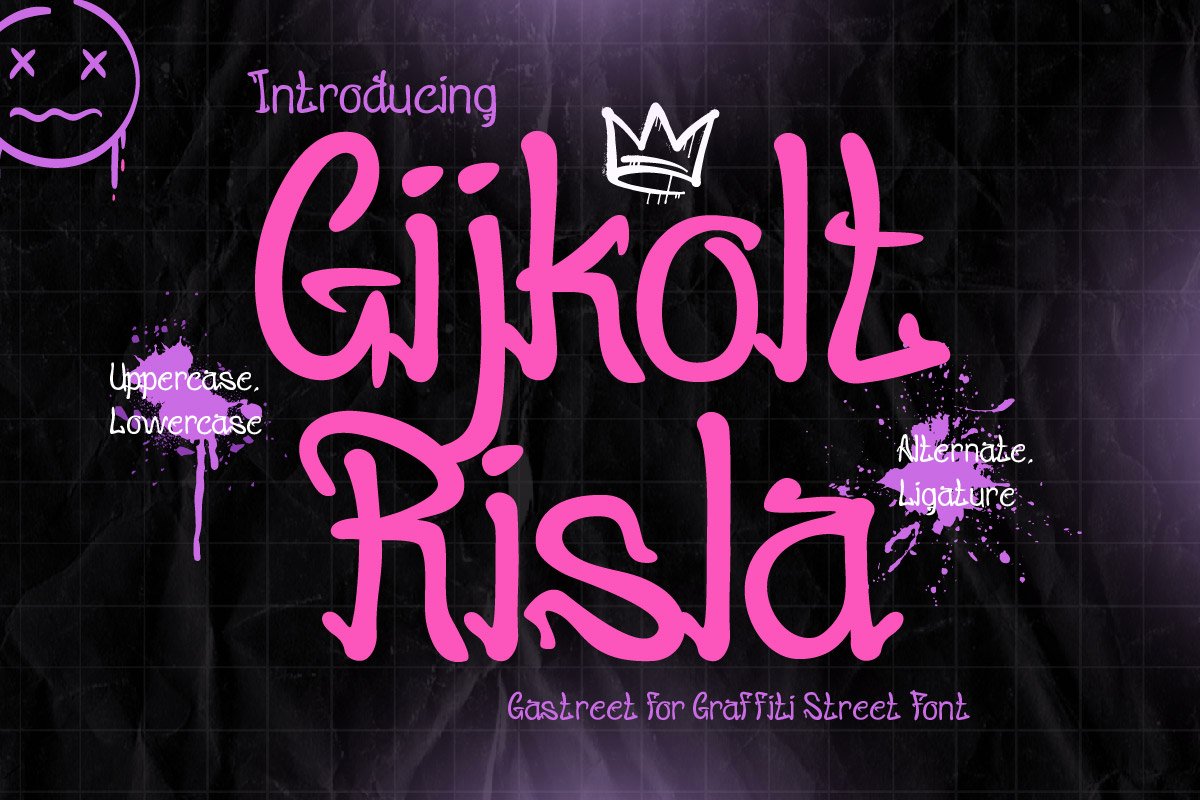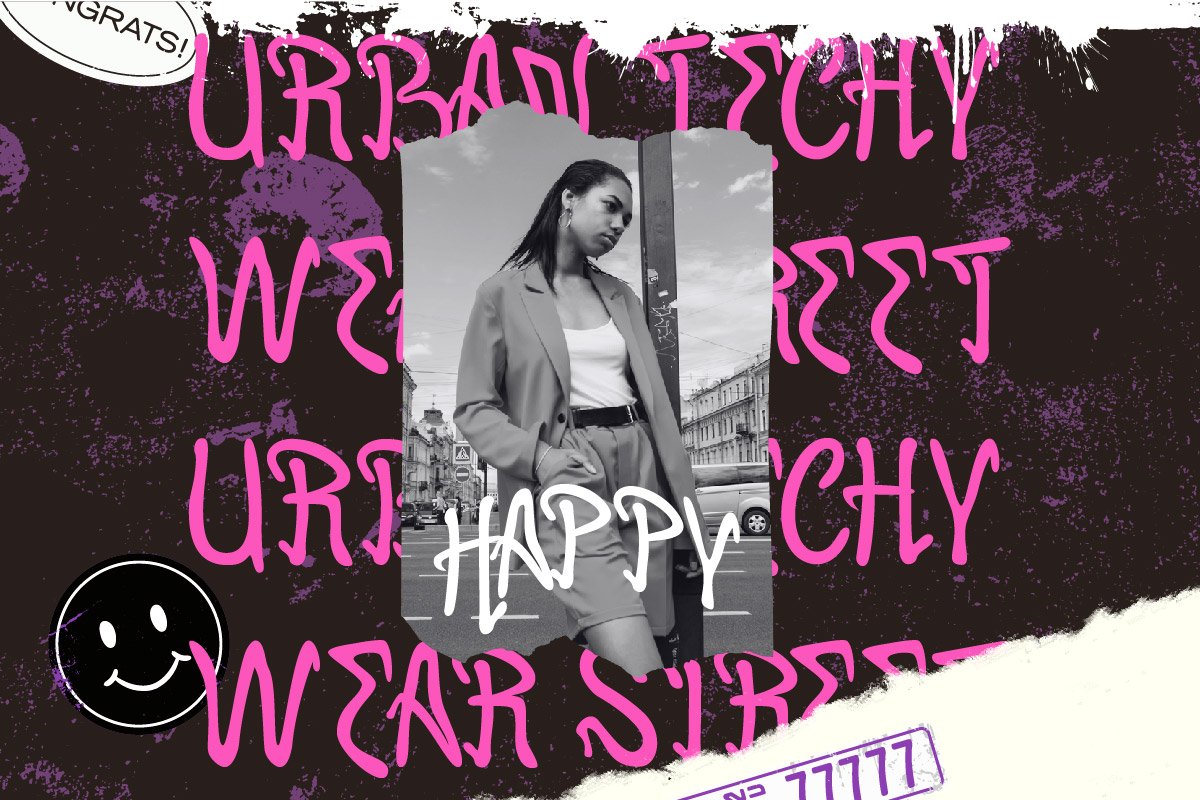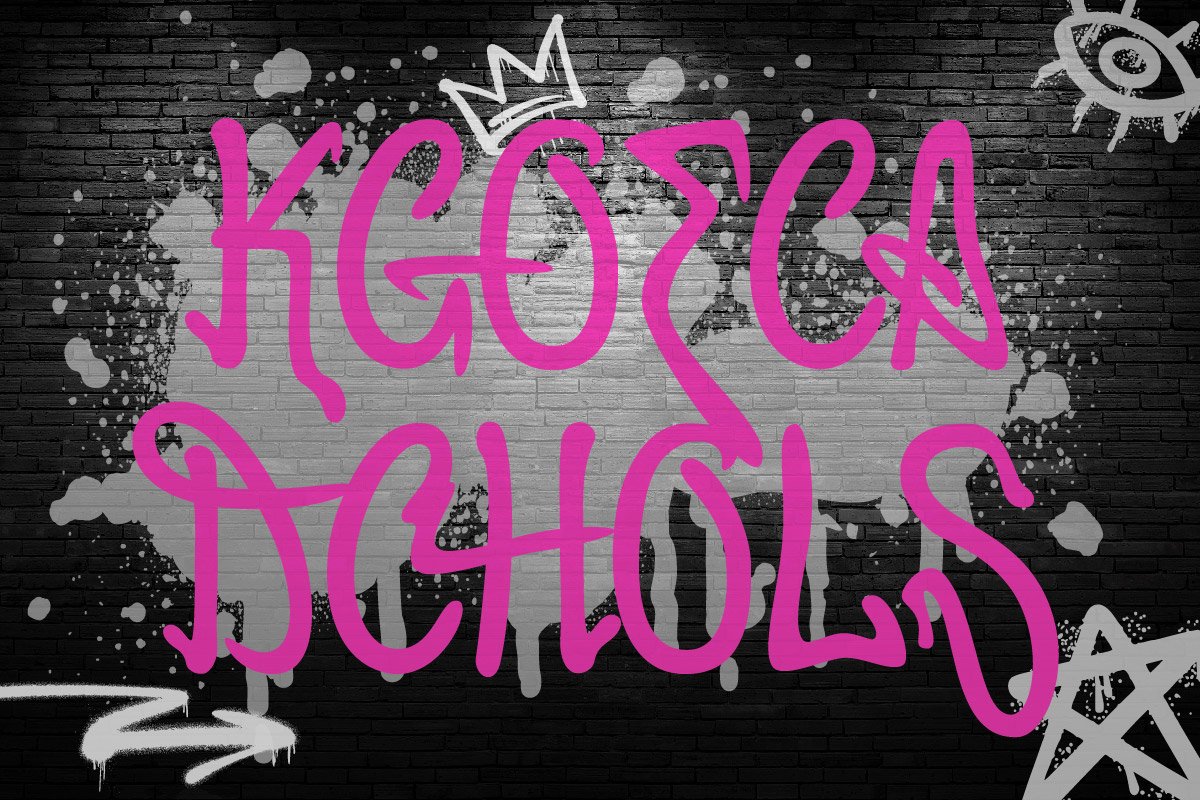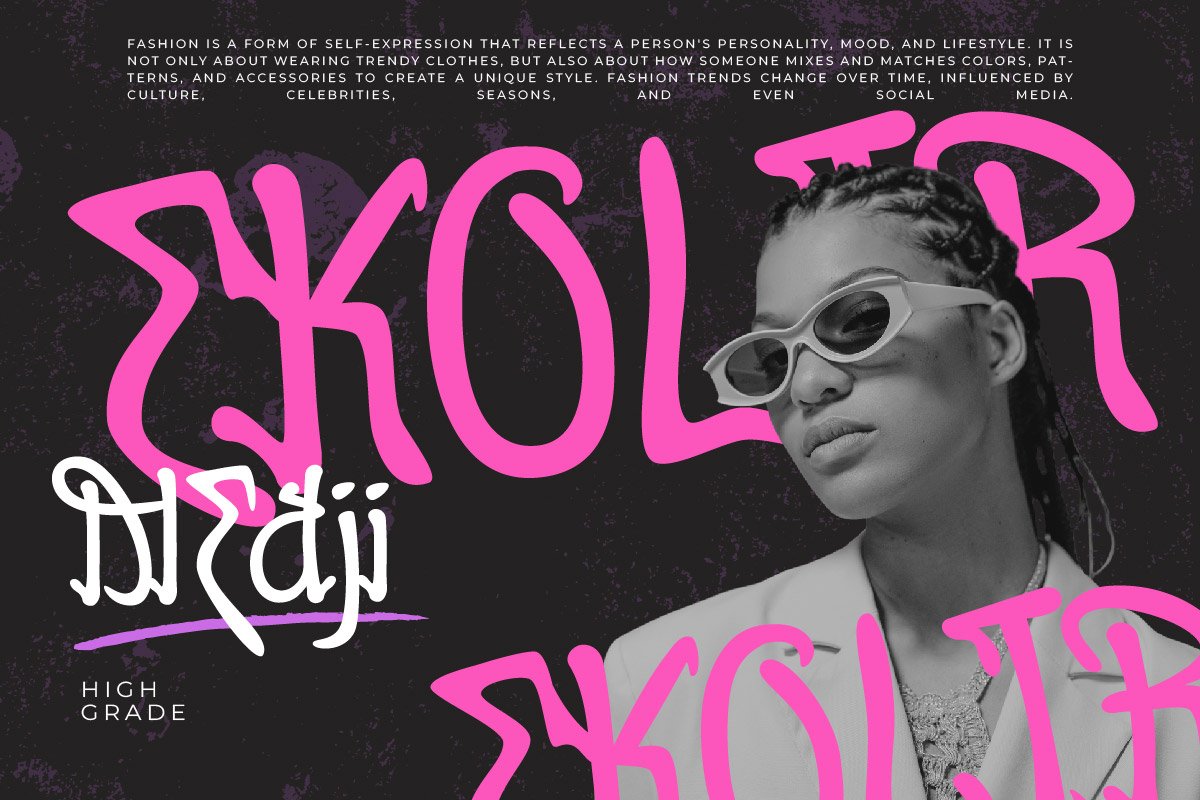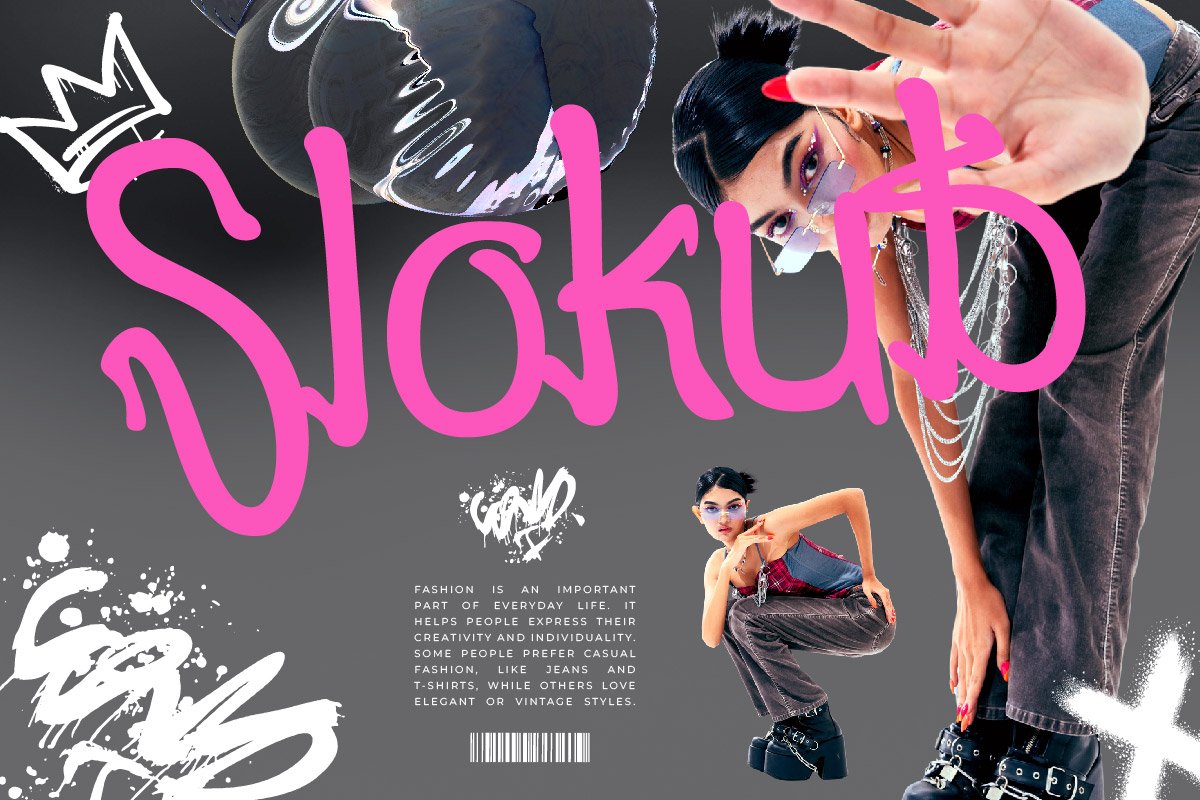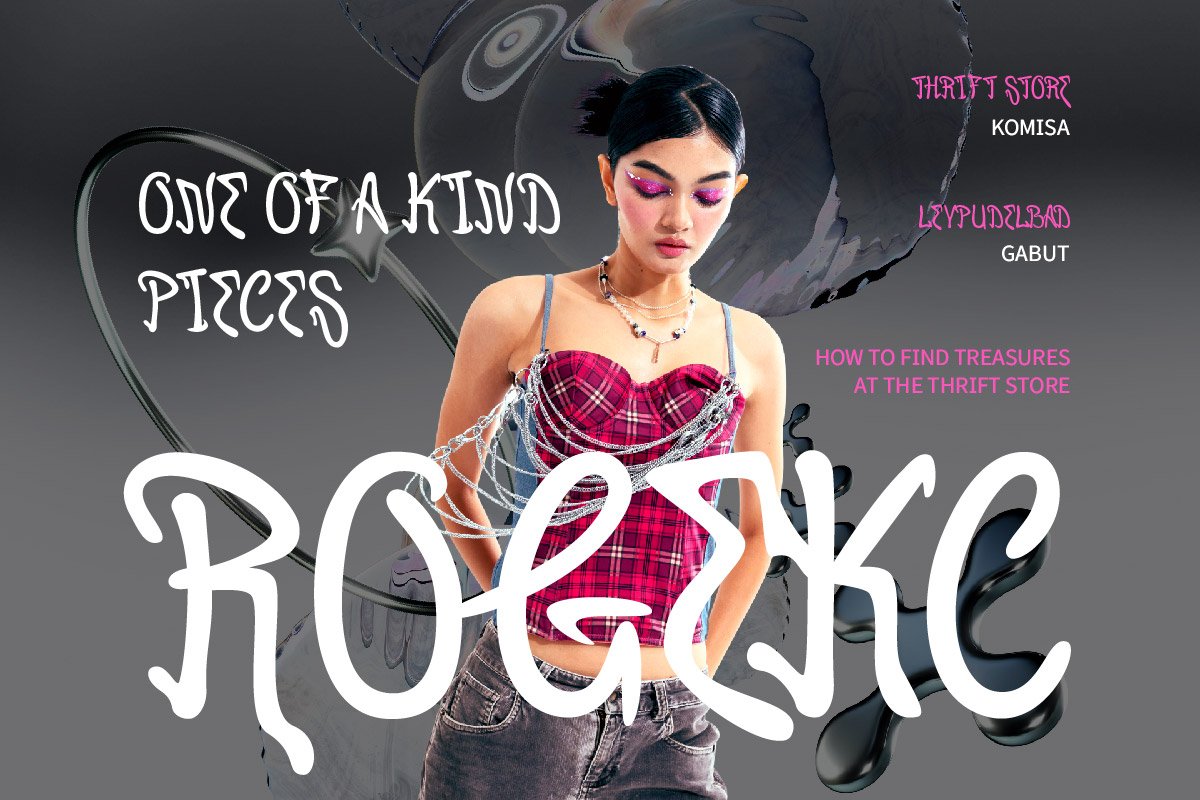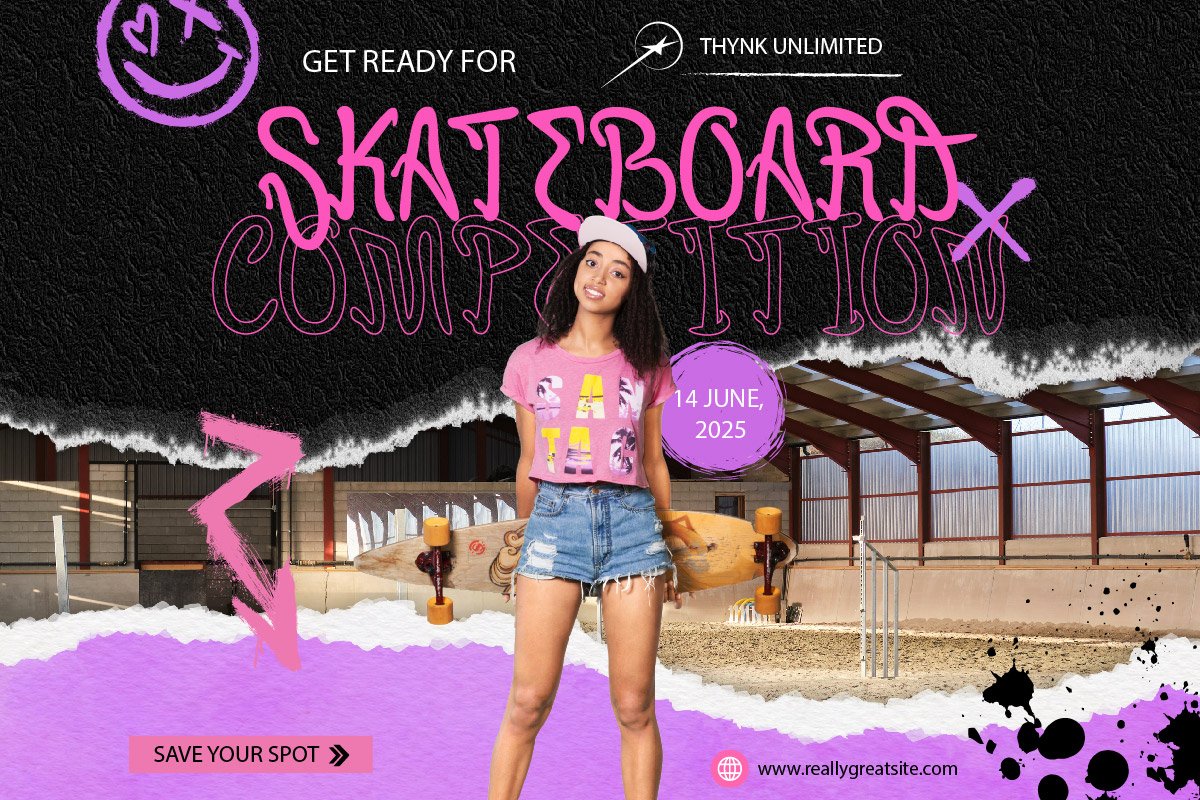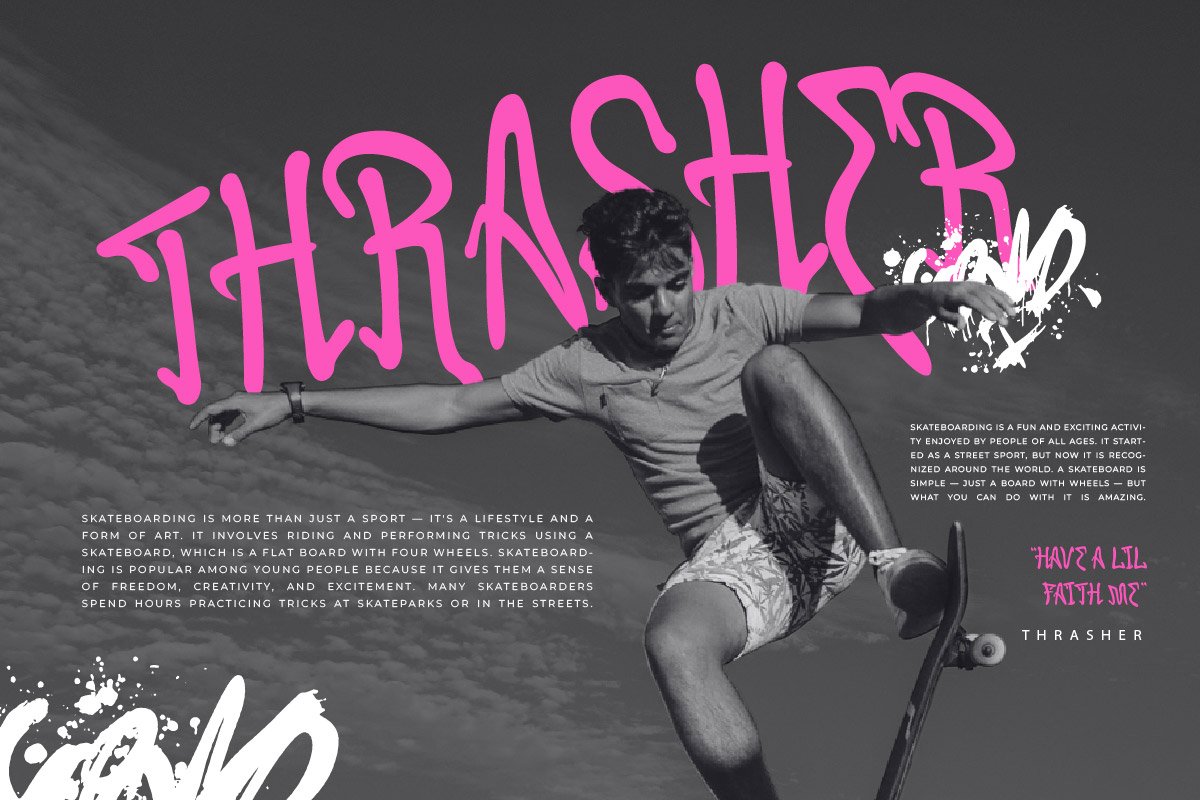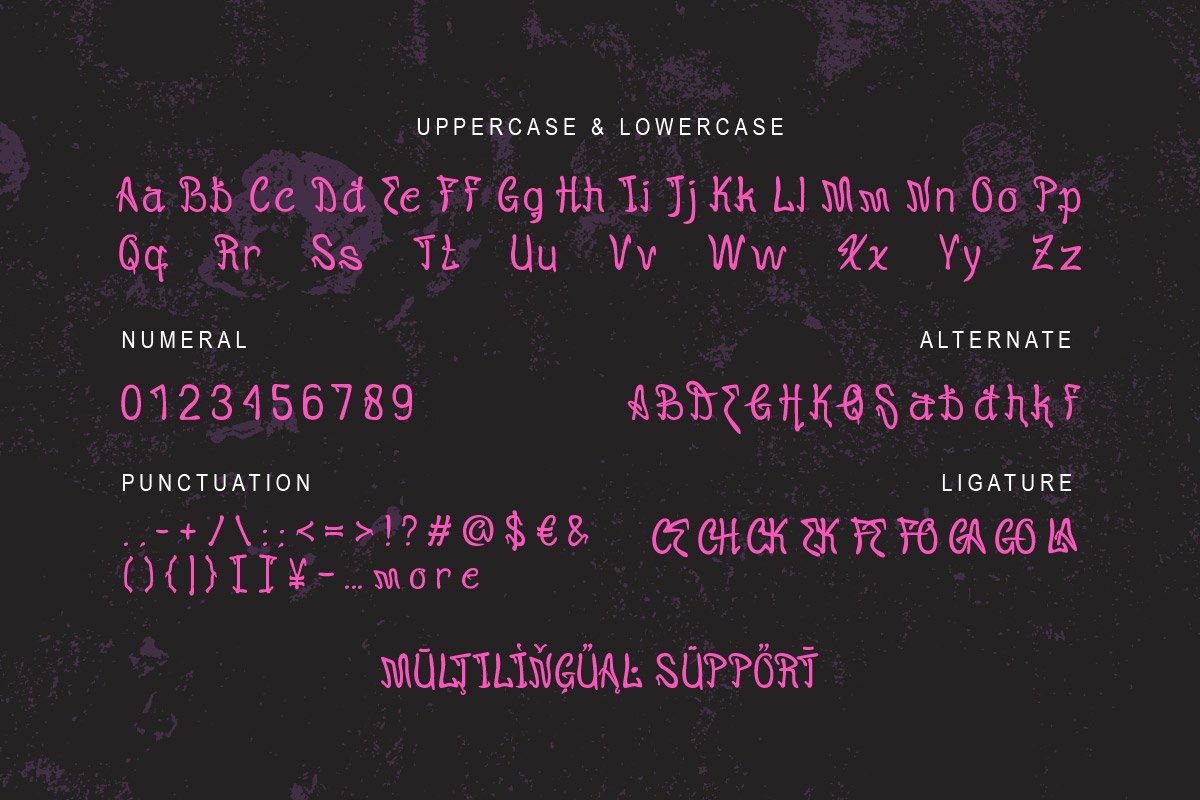
Gijkolt Risla – Street Graffiti Font
Gijkolt Risla is a raw and expressive street graffiti font that bursts with urban attitude. Crafted with irregular strokes and freestyle outlines, this font captures the authentic energy of street tags and wall art seen in the heart of big cities. Its wild style and rebellious edge make it the perfect choice for projects that need to stand out and make a statement.
From hip-hop album covers to urban fashion branding, skateboarding graphics, and underground event posters, Gijkolt Risla gives your designs a loud and daring character. Despite its chaotic charm, the font remains readable, blending artistic flair with real-world usability. Whether you’re designing for street culture or simply want to break design norms, this typeface adds a bold, gritty personality to your work.